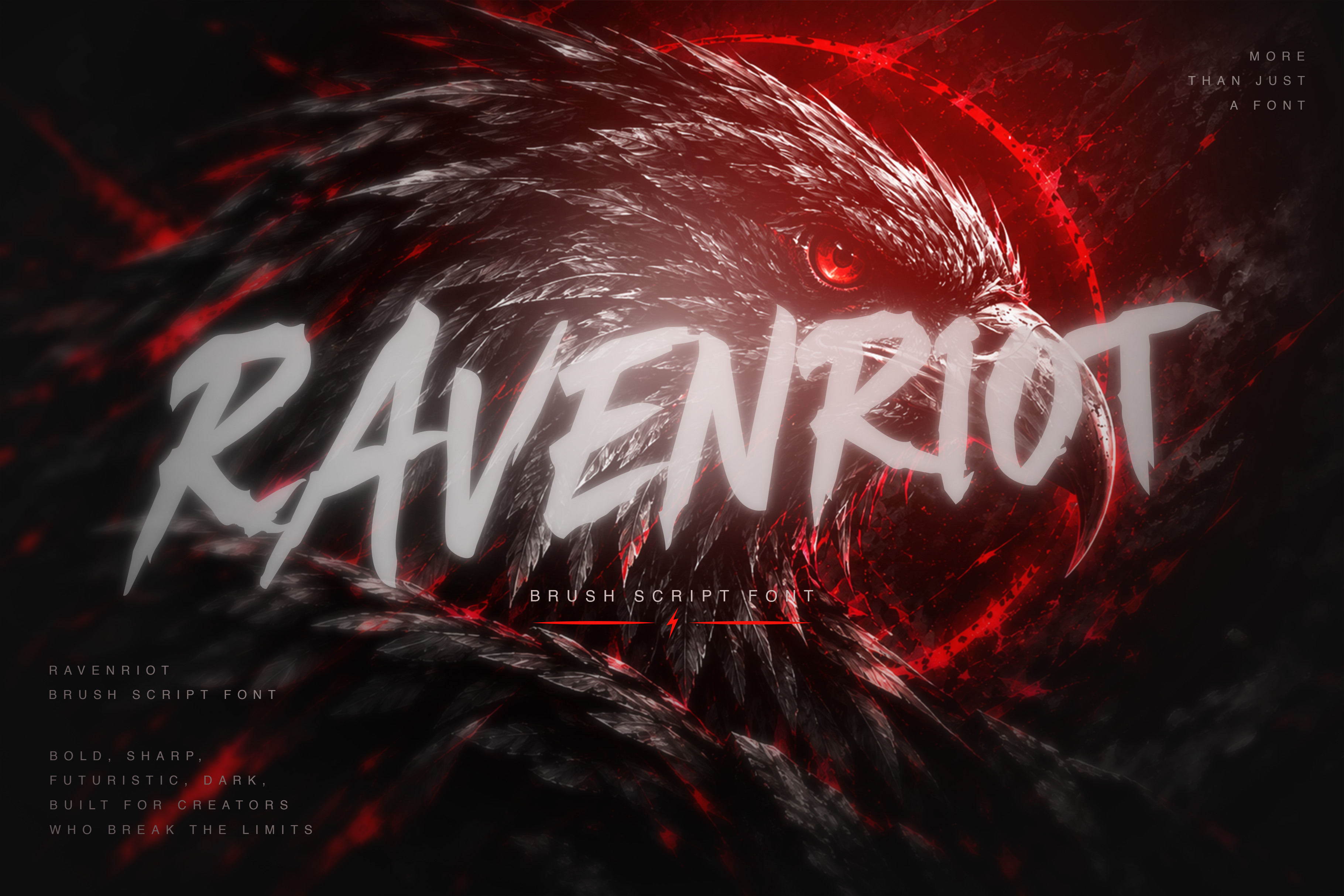
RAVENRIOT – Bold Brush Script Font
RAVENRIOT is a bold and aggressive brush script typeface created for designers who want their typography to feel raw, powerful, rebellious, and energetic.
Inspired by expressive hand-painted lettering, street culture, dark aesthetics, tattoo artwork, extreme sports, gaming graphics, and modern branding, RAVENRIOT combines rough brush textures, sharp strokes, dynamic movement, and strong visual impact into one distinctive display font.
Its bold handwritten character makes it especially effective for projects that need a strong visual identity and an instantly recognizable headline.
THE STYLE
RAVENRIOT features a bold brush-script appearance with rough, energetic, and expressive letterforms. The irregular hand-crafted feeling gives the typeface an authentic human touch rather than a perfectly geometric digital appearance.
The strong silhouette allows the font to remain visually impactful across both large-scale headlines and graphic compositions.
FONT HIGHLIGHTS
✔ Bold brush script style ✔ Aggressive handwritten character ✔ Rough & expressive letterforms ✔ Strong display presence ✔ Dark & rebellious aesthetic ✔ Suitable for branding ✔ Great for apparel designs ✔ Perfect for posters and merchandise ✔ Works well with logos and badges ✔ Designed for creative display typography
IDEAL DESIGN STYLE
RAVENRIOT is designed to help your typography stand out and bring a strong handmade attitude to your creative projects.
Turn ordinary words into powerful visual statements with RAVENRIOT.
RAVENRIOT is a bold and aggressive brush script font with a rough handcrafted character. Perfect for streetwear, logos, sports graphics, gaming, posters, tattoos, music artwork, merchandise, branding, and other bold display designs.